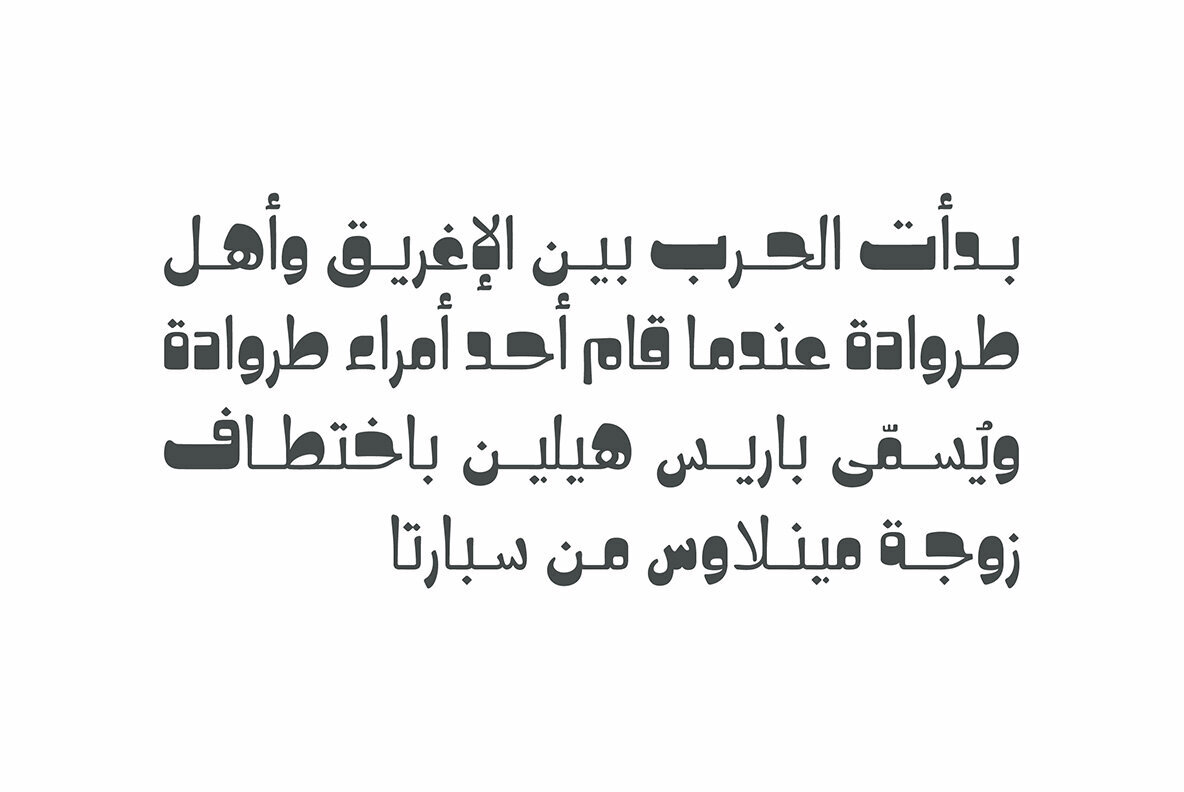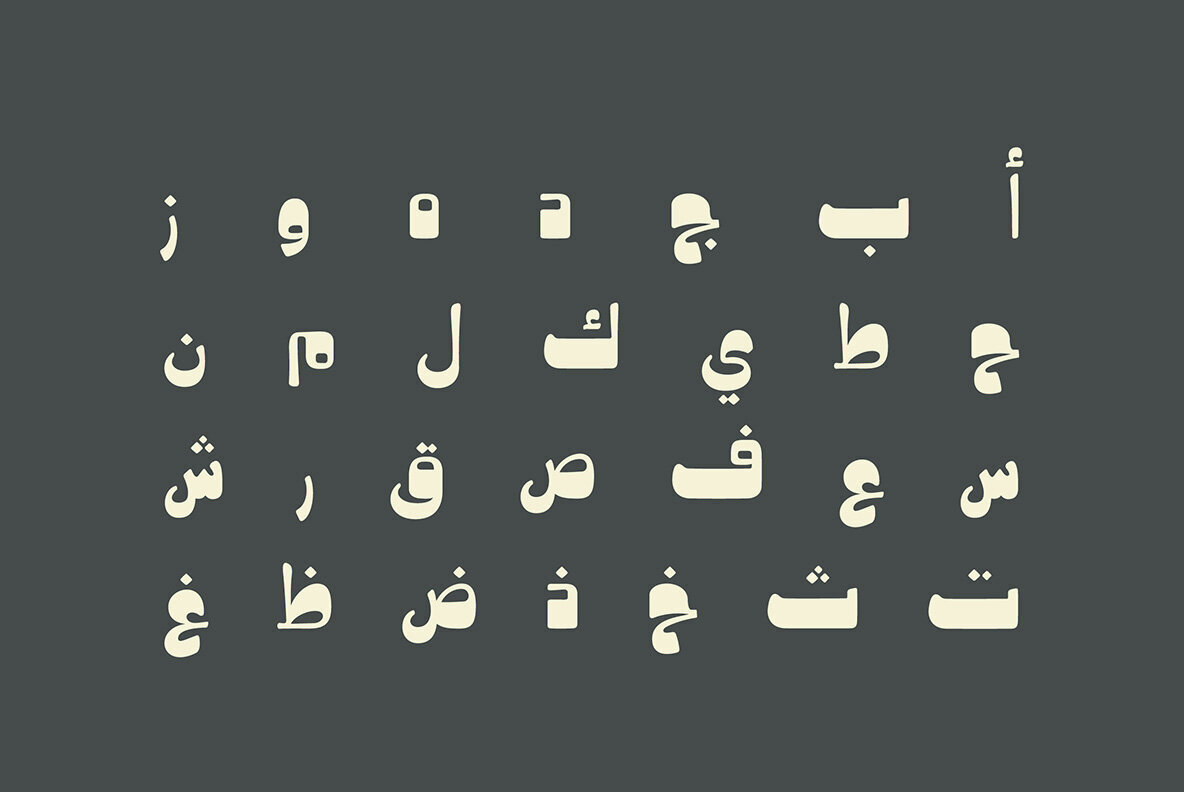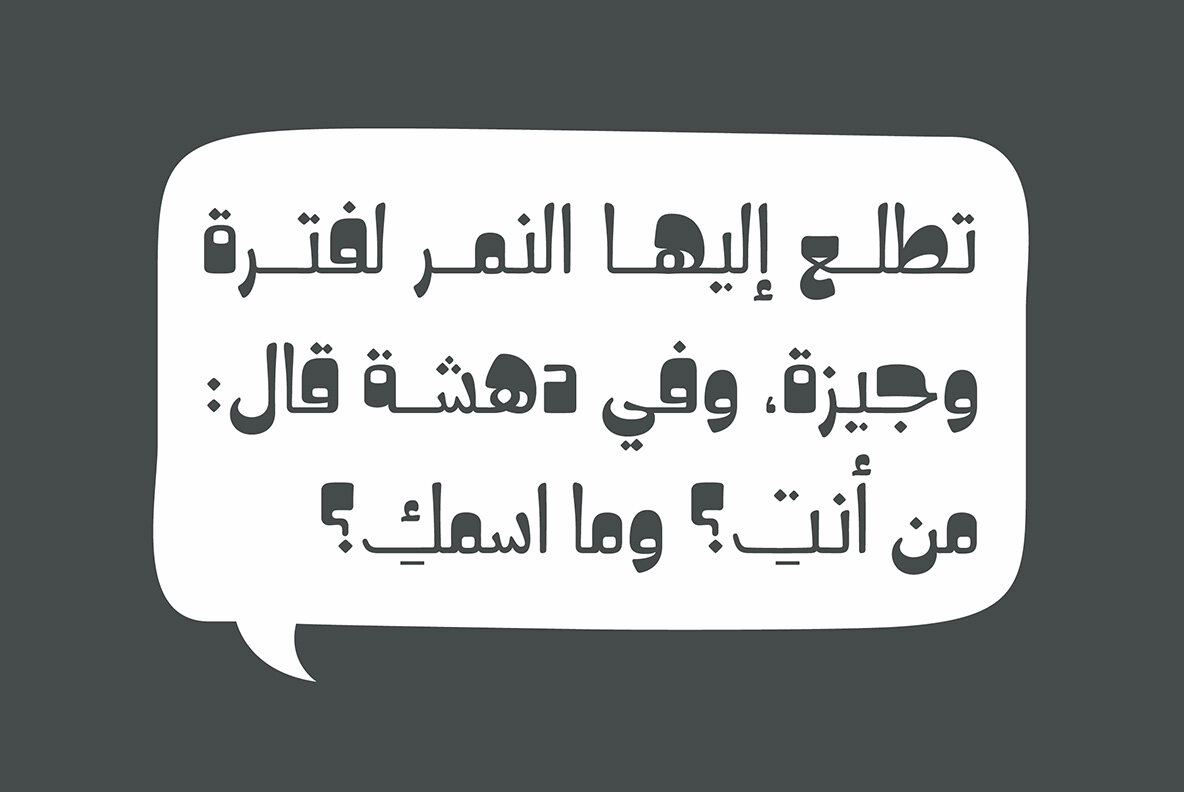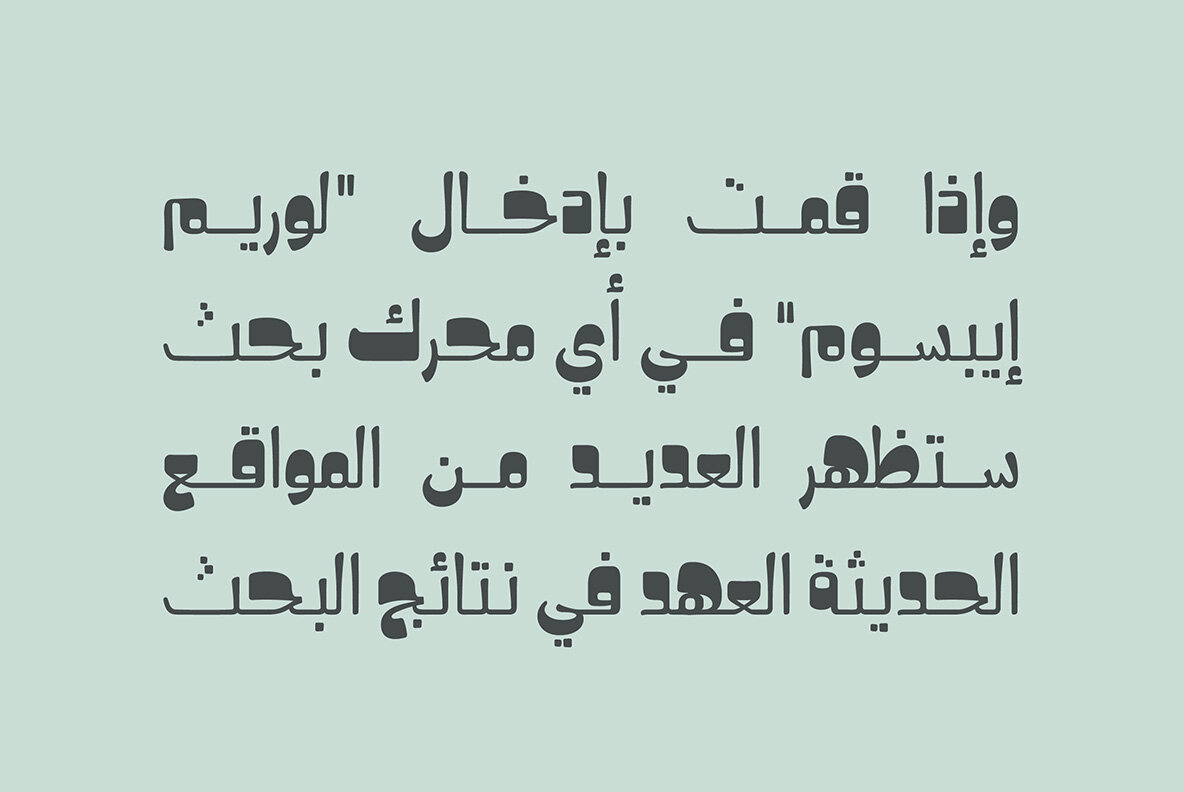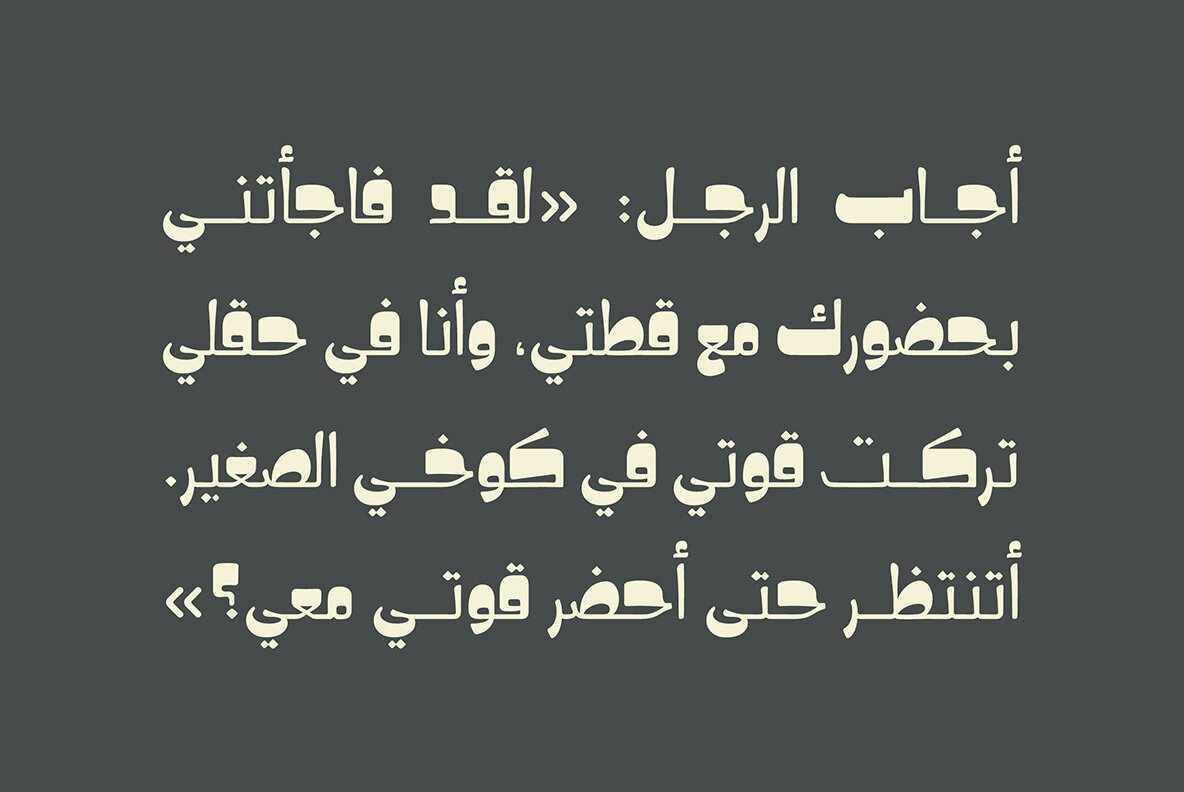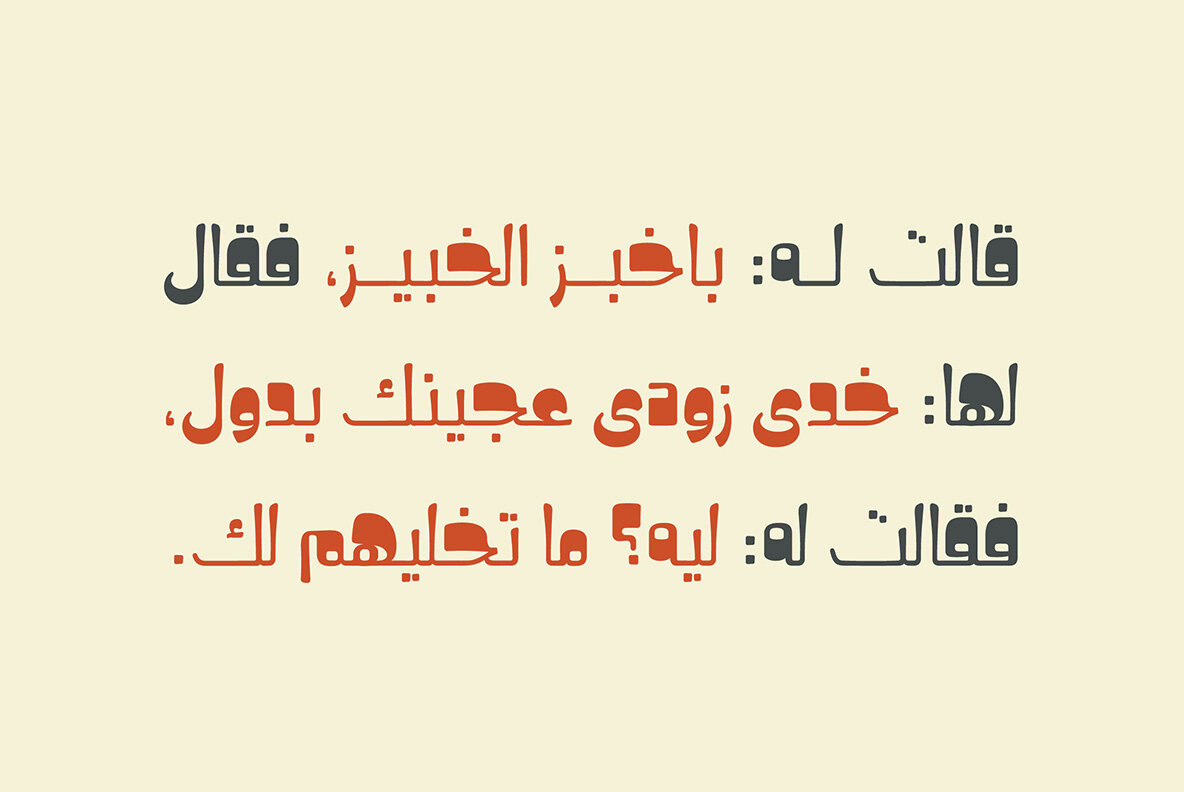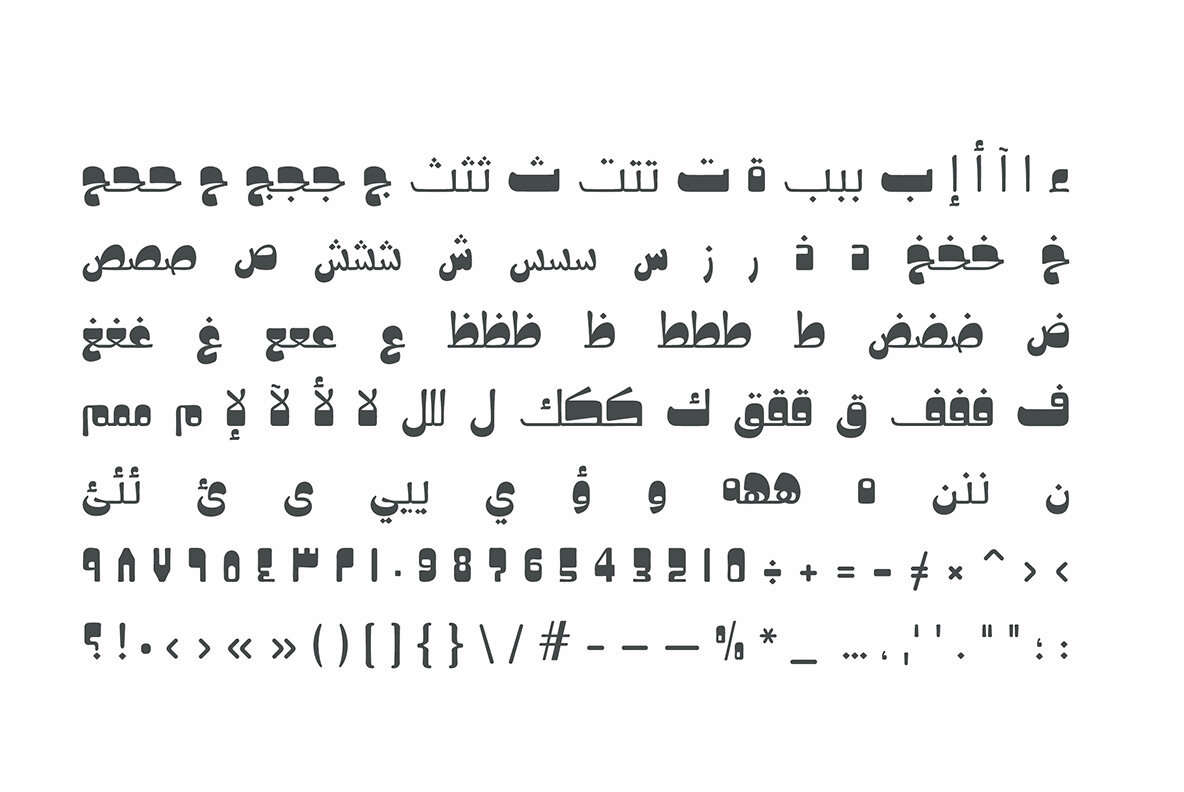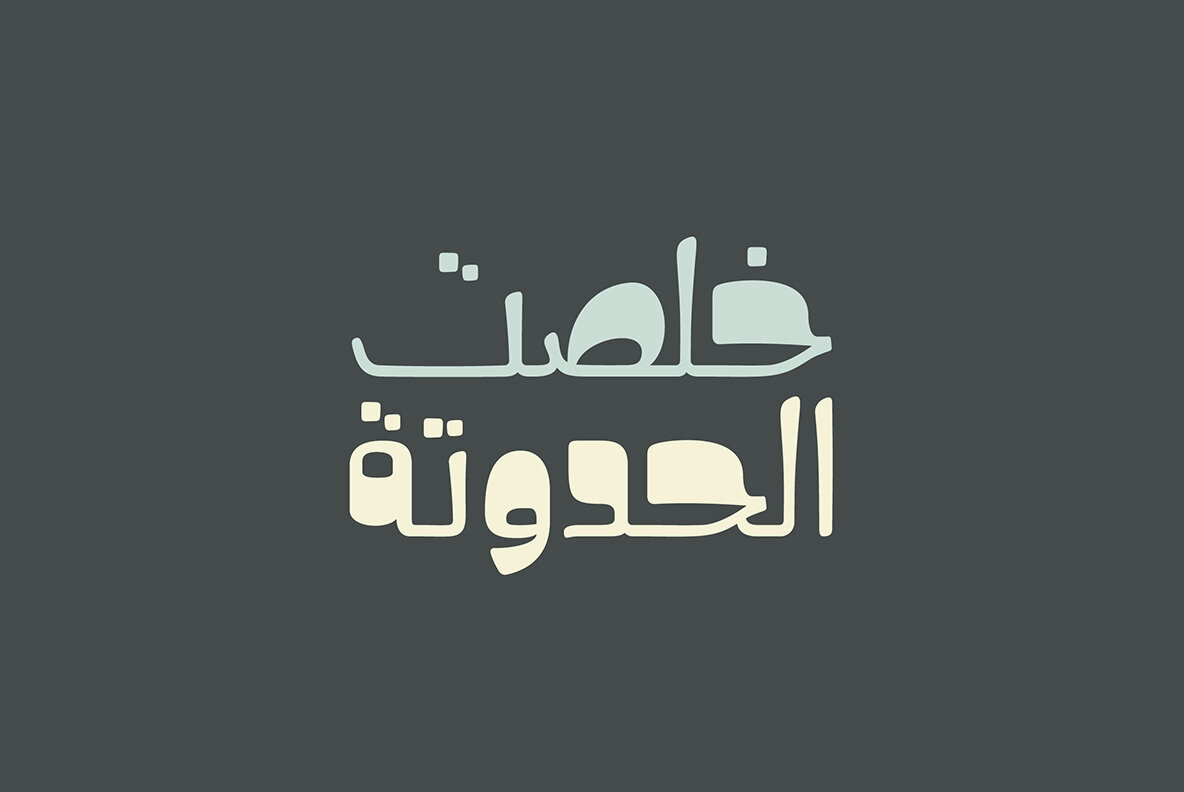
Hekayat Font
Hekayat is an Arabic display font that blends soft and smooth lines with heavy and thick terminals. The font suits publication design and comic books in addition to web and mobile applications. Hekayat features two styles with two different dot settings.